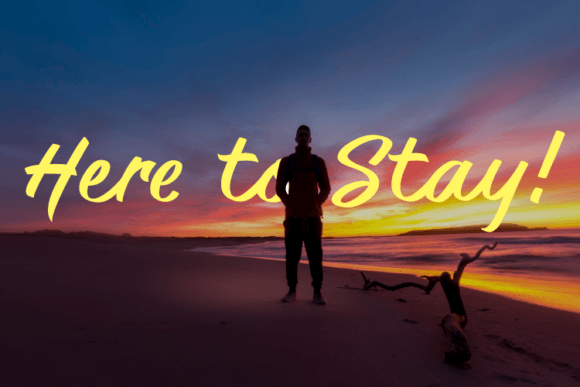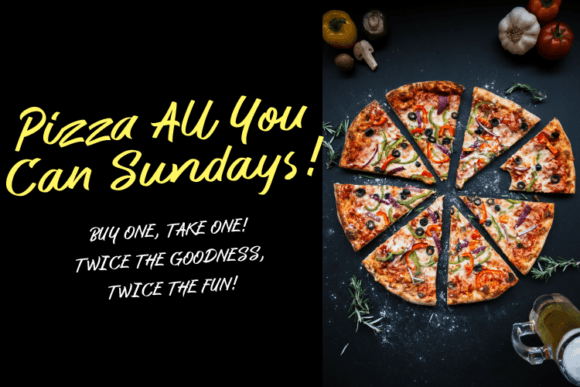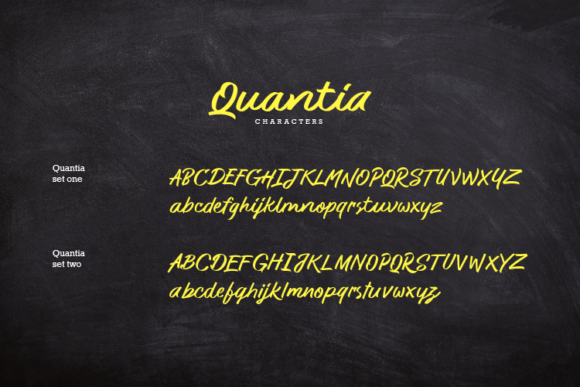
Introduction to Quantia Font
Have you ever stumbled upon the perfect font that elevates your entire creative project? It’s that magical moment when all the design elements come together, and your vision is finally realized. For designers, finding the right font can be a game-changer, and we’re excited to introduce you to one of our favorite design resources – the Quantia Font.
With its simple yet classy style, the Quantia Font is a versatile asset that can enhance any creation. Whether you’re working on a high-quality brochure, a website, or a social media campaign, this font is sure to bring a touch of elegance and sophistication. Plus, with a transparent background, you can easily layer it over any design element to create a cohesive look.
Key Features of Quantia Font
- High-quality, unique font design perfect for creative projects, with a transparent background ideal for graphic designers.
- Includes a wide range of characters, including uppercase and lowercase letters, numbers, and special symbols.
- Unique characteristics include a modern, elegant design and a wide range of customization options, making it suitable for various creative projects.
Honest Review: Quantia Font
As a designer, I’m always on the lookout for high-quality fonts that can elevate my creative projects. The Quantia Font caught my attention, and I decided to give it a try. Here’s my honest review.
- ✨ Unique and elegant design style that adds a touch of sophistication to any project.
- ✨ High-resolution images that ensure crisp and clear text, even at large sizes.
- ⚠️ Limited character set, which may not be ideal for longer texts or complex projects.
- ⚠️ Transparent background option can be a bit tricky to work with, especially for designers who are not familiar with it.
Overall, I think the Quantia Font is a great design resource for designers who want to add a touch of elegance to their projects. While it has some limitations, its unique design style and high-quality images make it a great choice for creative projects. If you’re looking for a free font that can add some sophistication to your designs, the Quantia Font is definitely worth checking out.
Quantia Font
Tips for Getting the Most Out of Quantia Font
Use the Quantia Font in combination with other high-quality design resources to create a cohesive and professional look. Experiment with different font sizes and styles to add visual interest to your design.
The Quantia Font is perfect for use in logos, business cards, brochures, and other marketing materials. It’s also great for use in creative projects such as typography posters and infographics.